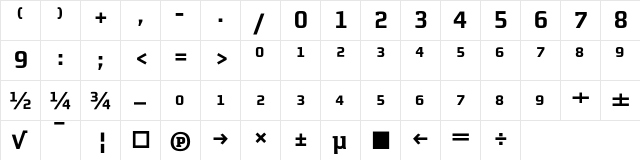
MorganAvec BoldFigures
MorganAvec offers clean, dependable letterforms without strong stylistic allegiance, making it a practical choice for designers who need flexibility. Its bold stroke weight gives it real presence on the page.